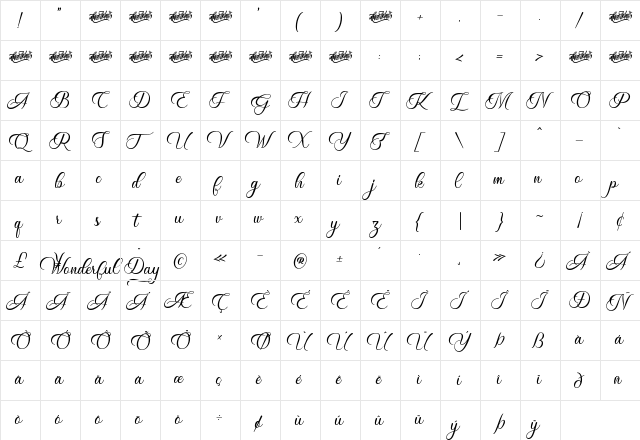
Wonderful Day Regular
Design Context for Wonderful Day Typeface
Wonderful Day is a composed and adaptable typeface that performs quietly and consistently across a wide range of design contexts.